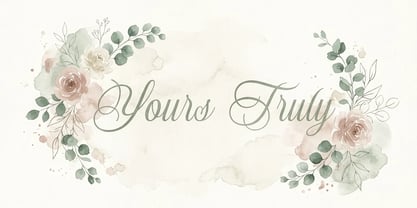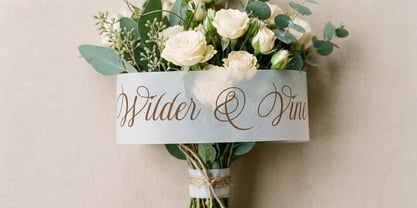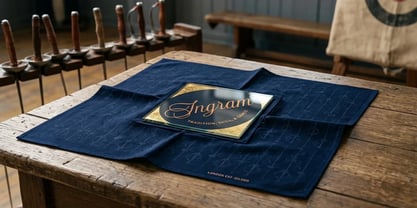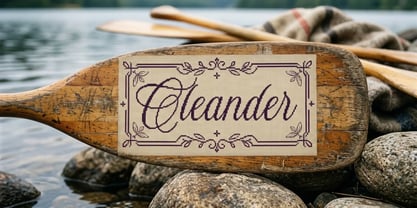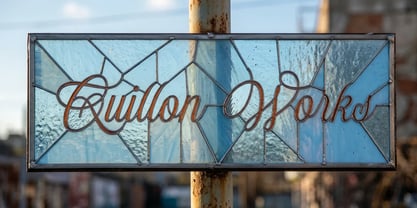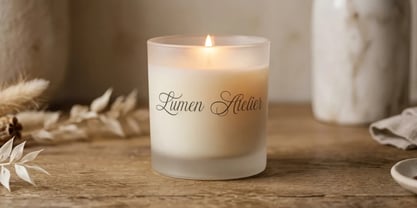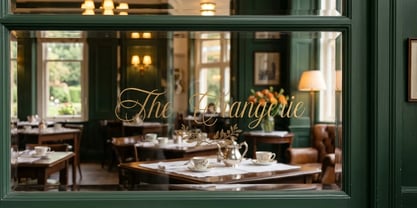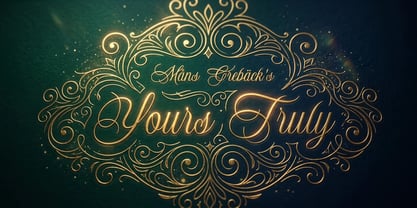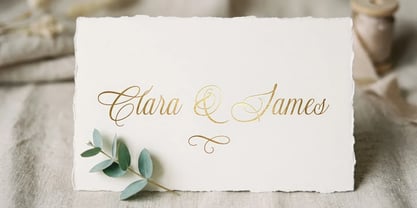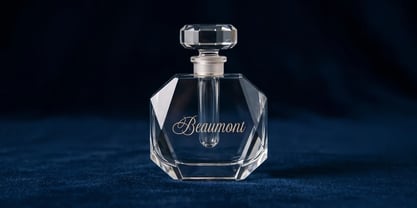
Yours Truly
von Mans Greback
Die Schriftfamilie Yours Truly wurde von Måns Grebäck entworfen und von Mans Greback veröffentlicht. Yours Truly enthält 4 Stile und Familienpaketoptionen. Mehr über diese Familie
Yours Truly is a formal calligraphy script with fine, looping penmanship.
The strokes are thin and flowing, swelling gently on the downstrokes and trailing into long connecting curves and swashes. The contextual alternates keep the joins natural, so a written line reads like it came from a steady hand and a pointed pen.
Imagine it on a wedding invitation or signed across the corner of a handwritten letter.
The font is built with advanced functionality and guaranteed top-notch quality, containing stylistic and contextual alternates, ligatures and more automatic and manual features; all to give you full control and customizability.
It has extensive lingual support, covering all Latin-based languages, from North Europa to South Africa, from America to South-East Asia. It contains all characters and symbols you'll ever need, including all punctuation and numbers.